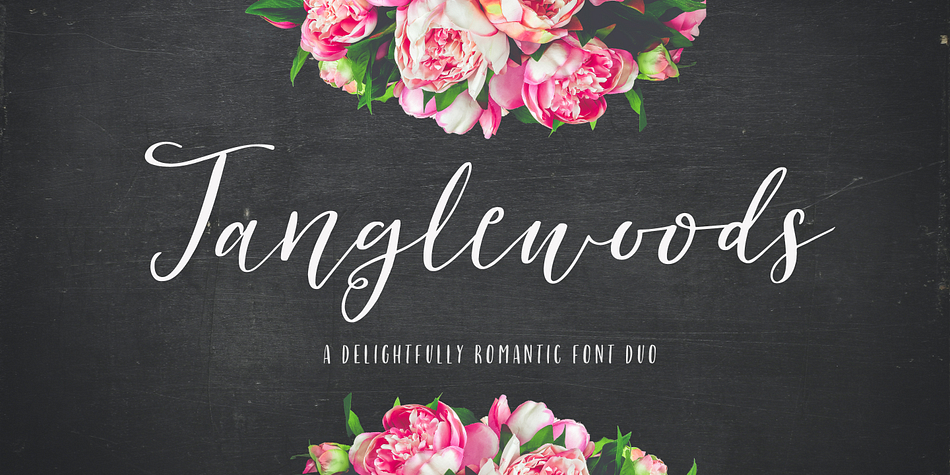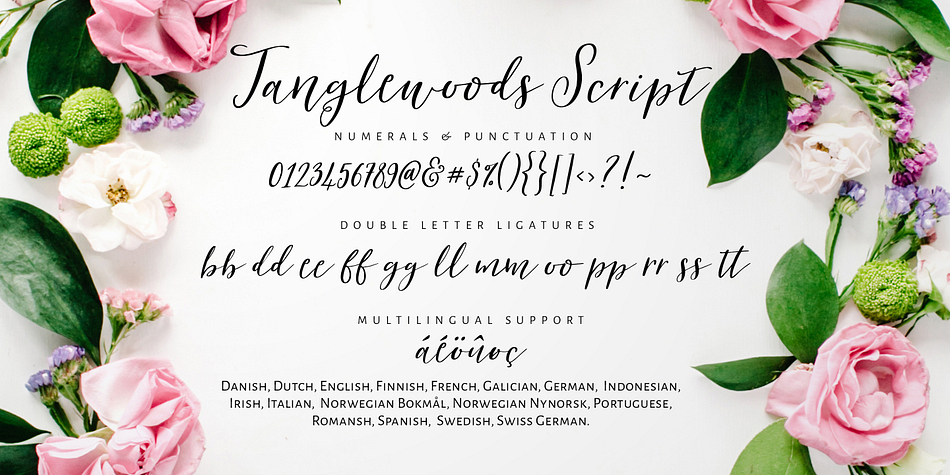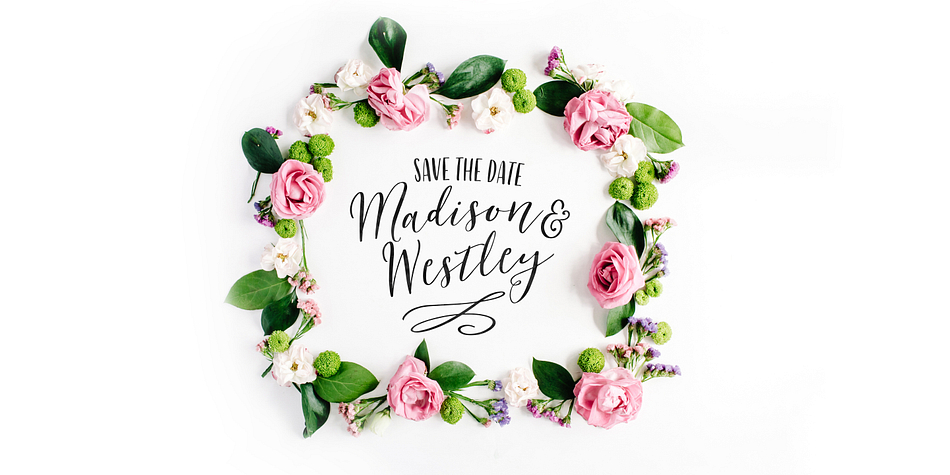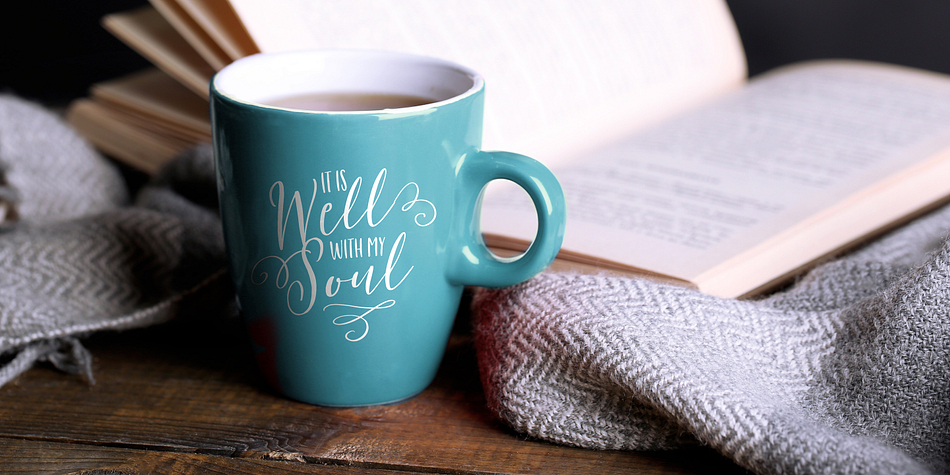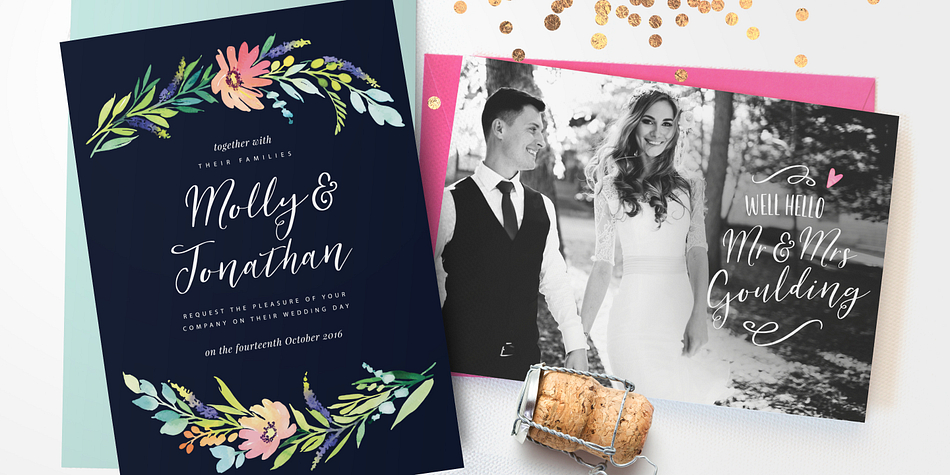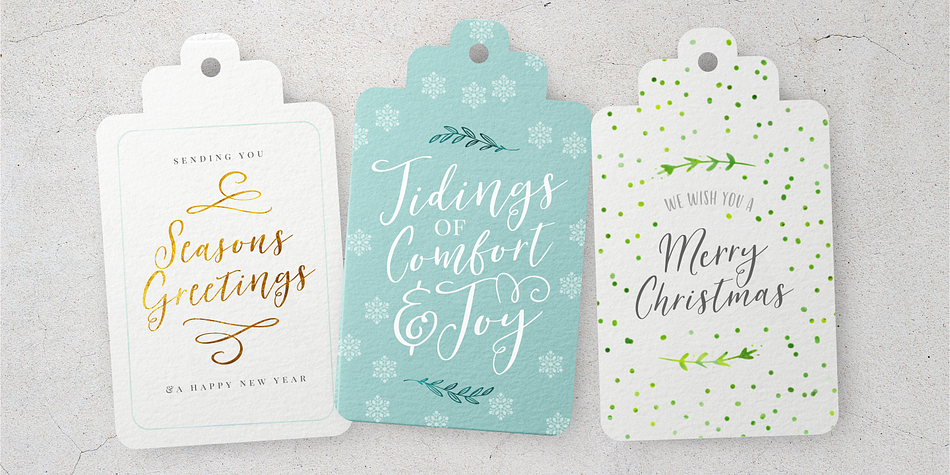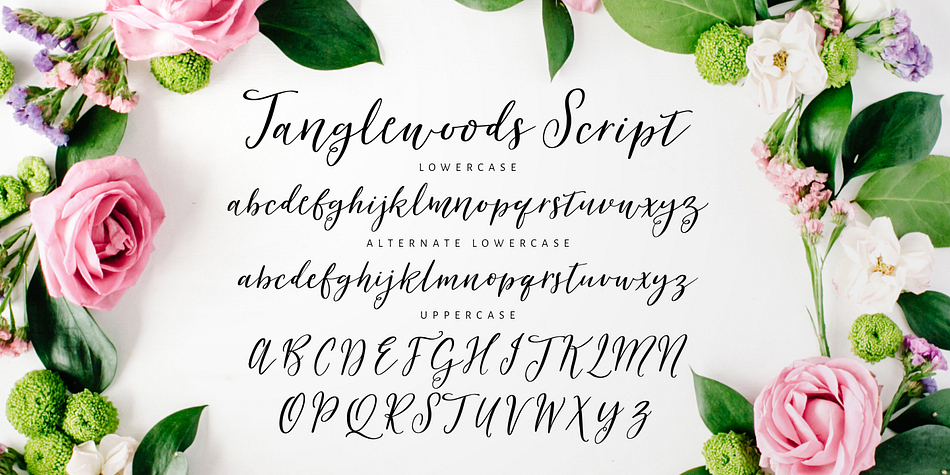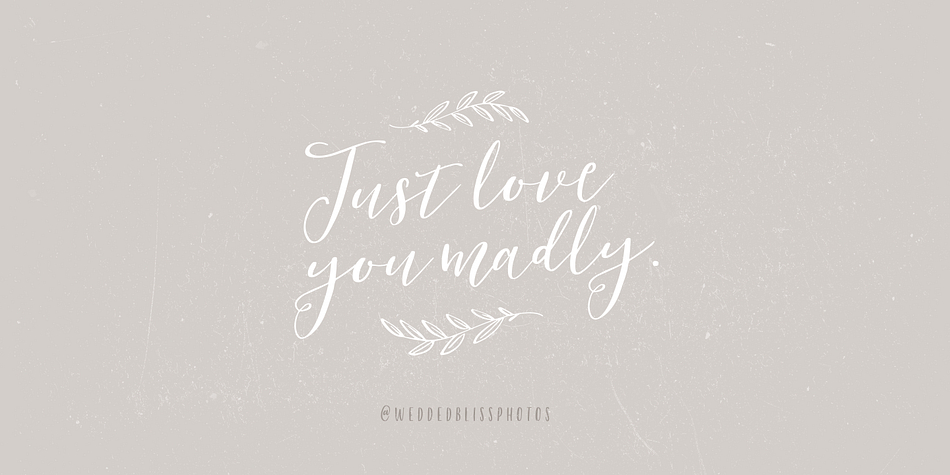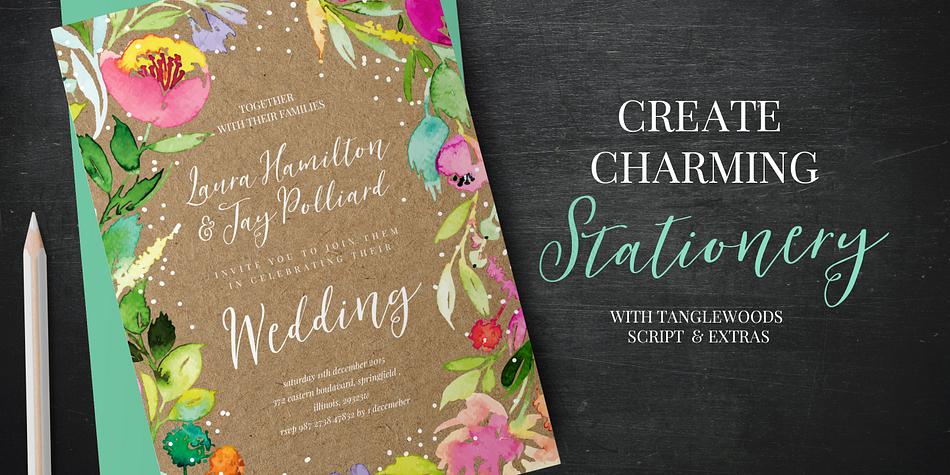
Designed by Nicky Laatz, Tanglewoods is a dingbat, hand drawn and modern calligraphy font family. This typeface has four styles and was published by Nicky Laatz.
A romantic little modern calligraphy font duo that will all whisk you off your feet!
It comes with an extra dingbat font with oodles of sweet little flourishes and embellishments too!
Tanglewoods Script has a lovely whimsical character with the natural organic flow from a real calligraphy pen. It’s perfect for weddings, feminine logos, branding, invitations, quotes, social media, websites, and well….just about anything pretty! :)
It includes opentype features - stylistic alternates for the lowercase letters, and a comprehensive set of natural looking Ligatures to add to the natural nature of the typeface.
The Complimentary sans serif font, Tanglewoods Sans, is a whimsical and light-hearted uppercase font.
The extra dingbat font, Tanglewoods Extras, has 62 beautiful flourishes and embellishments, all available by hitting the keystrokes A-Z, a-z and 0-9.